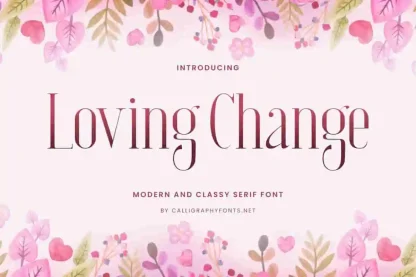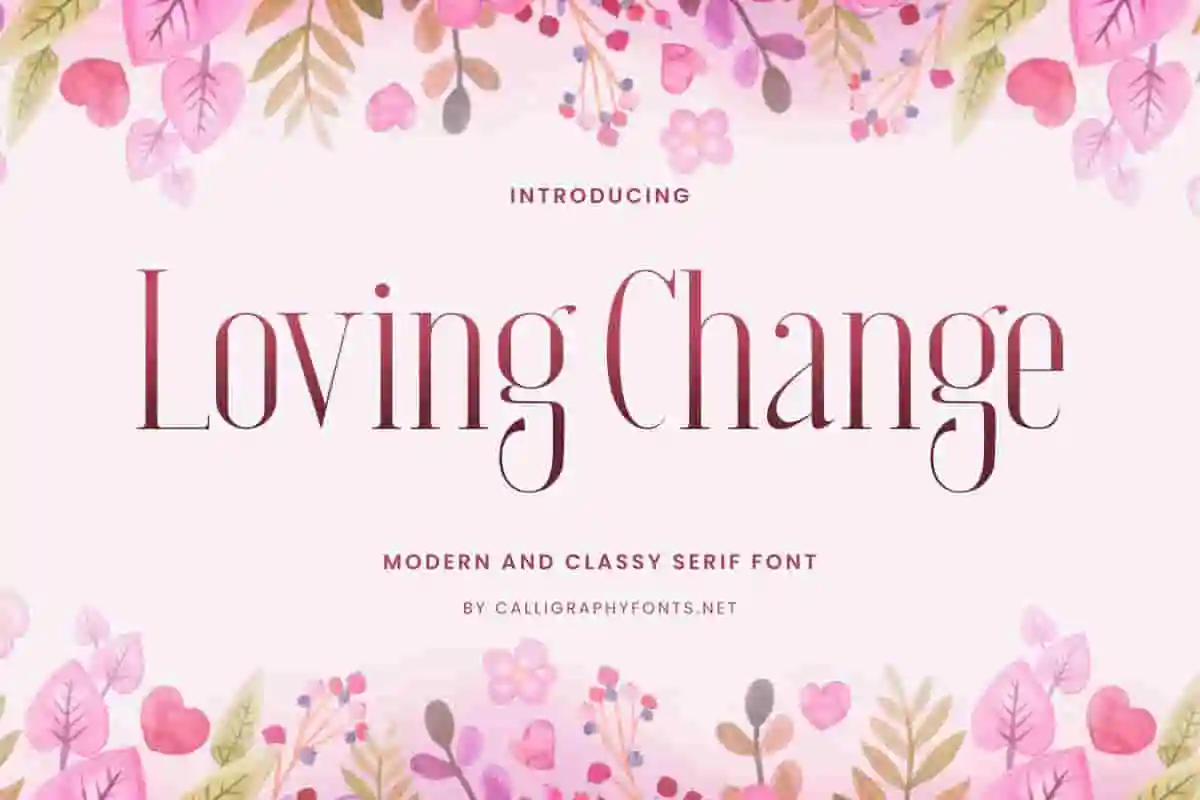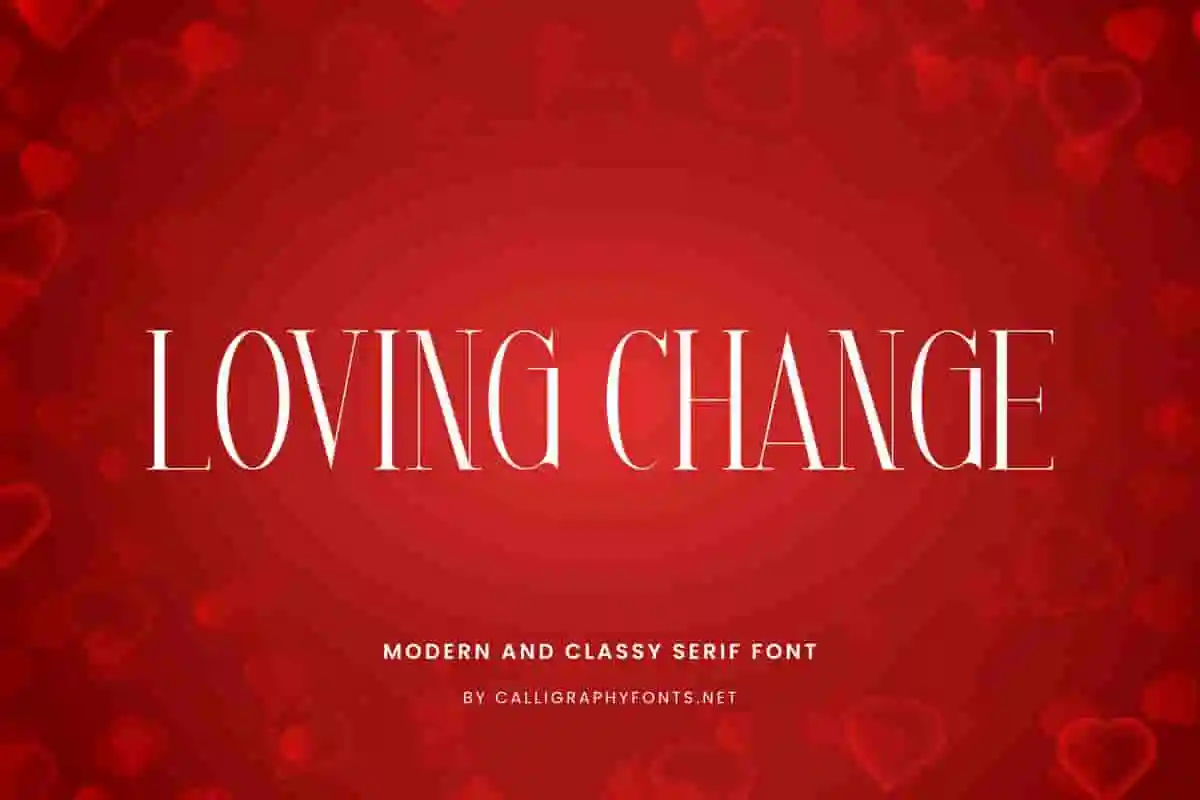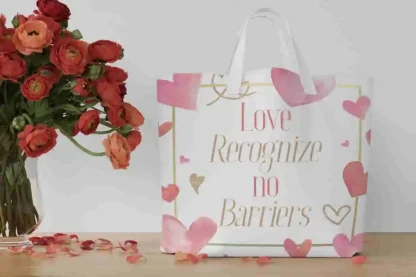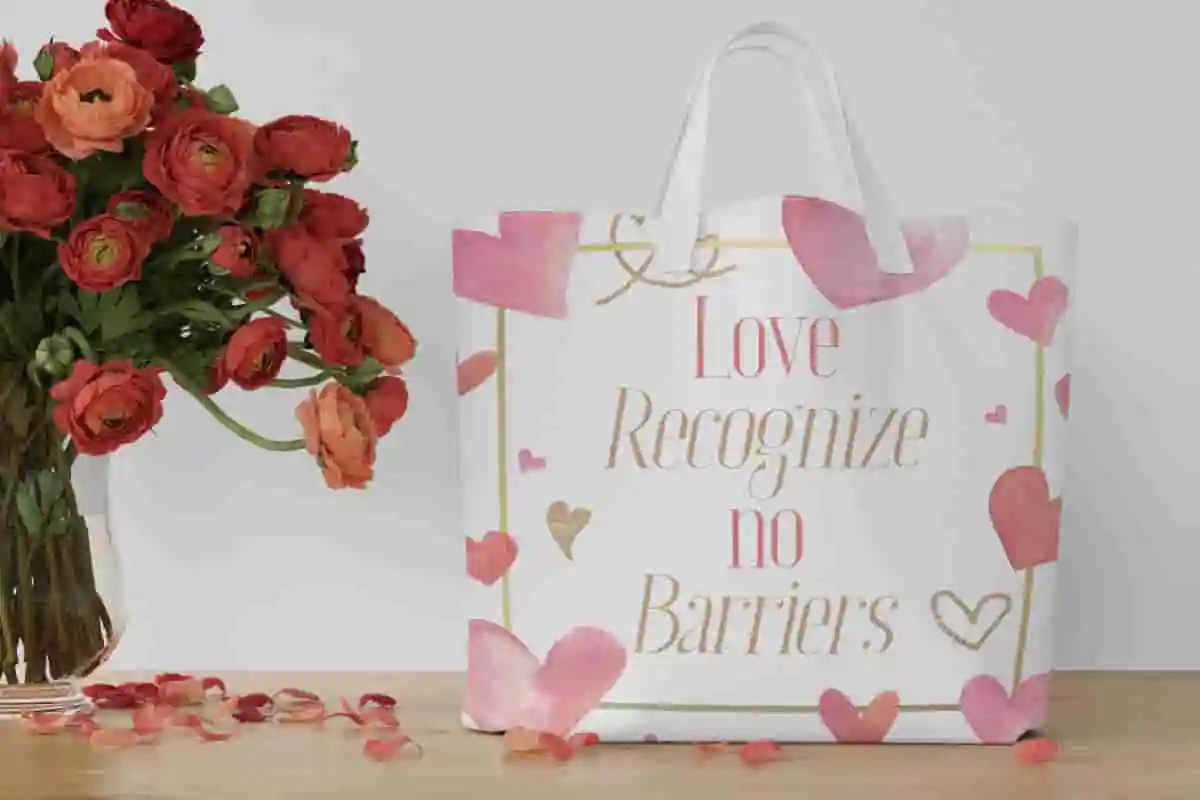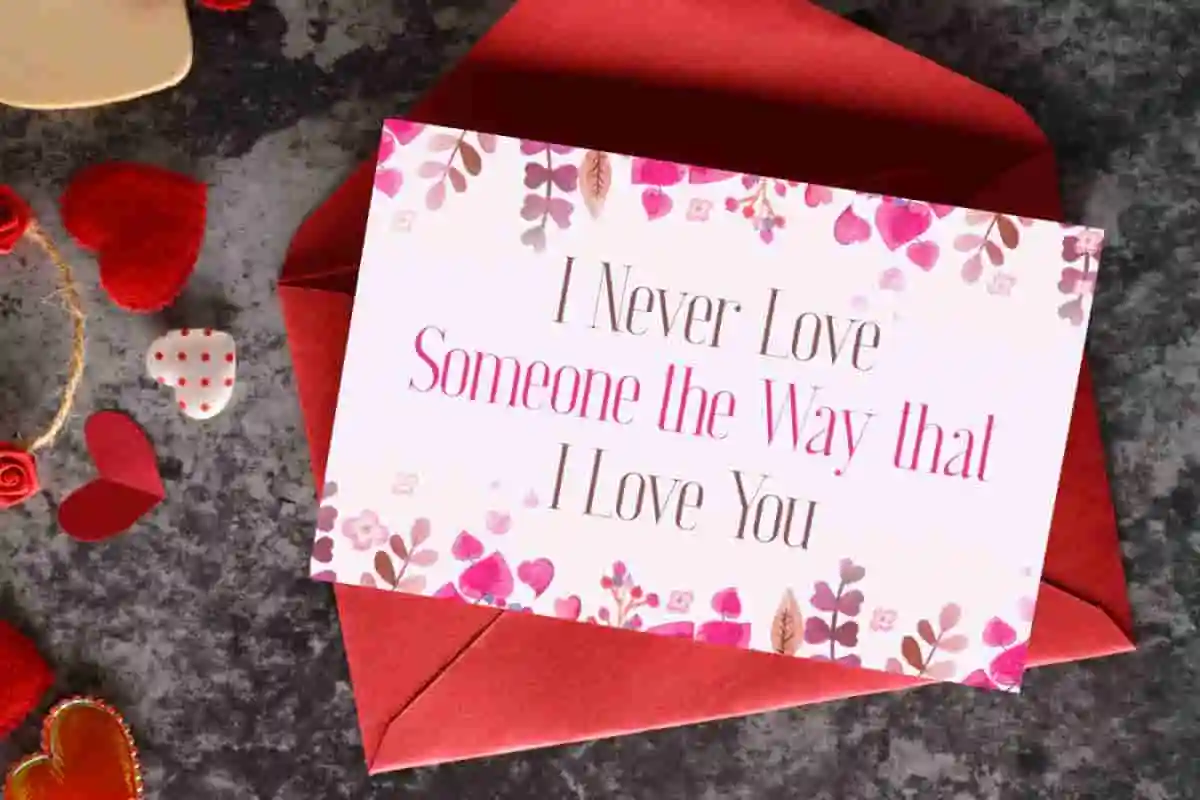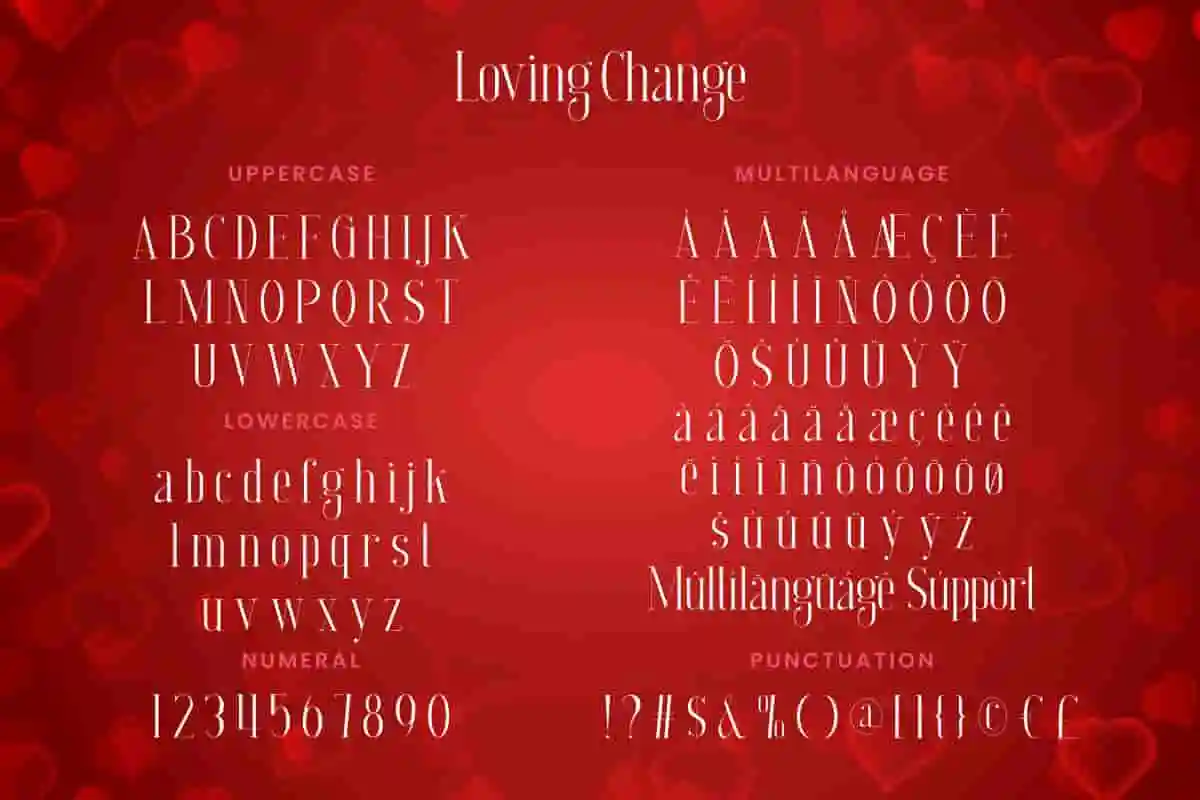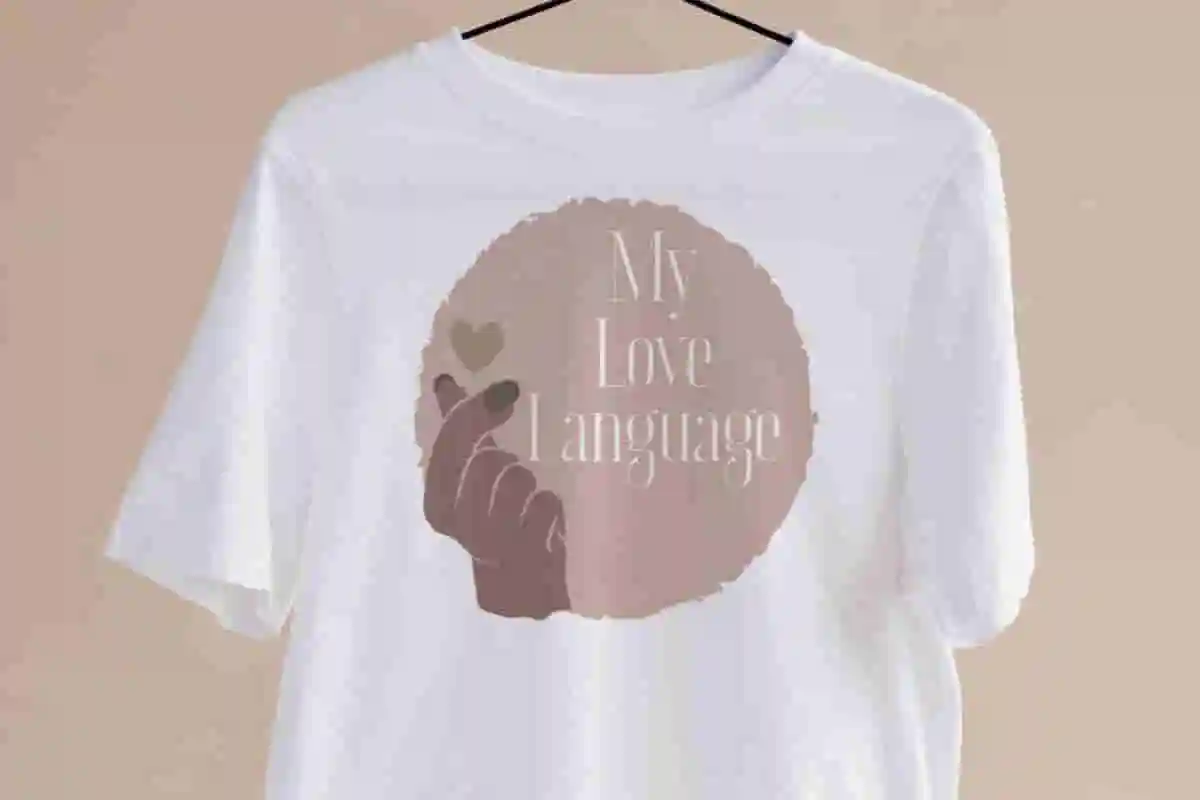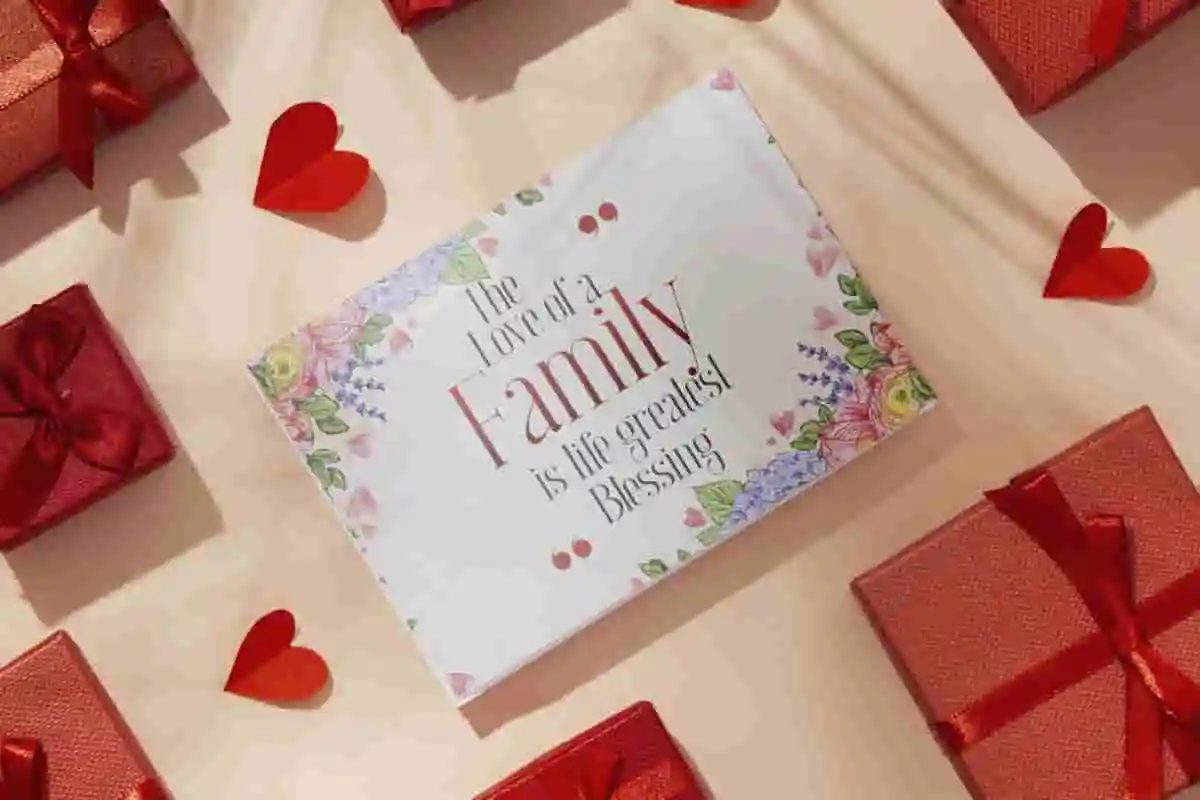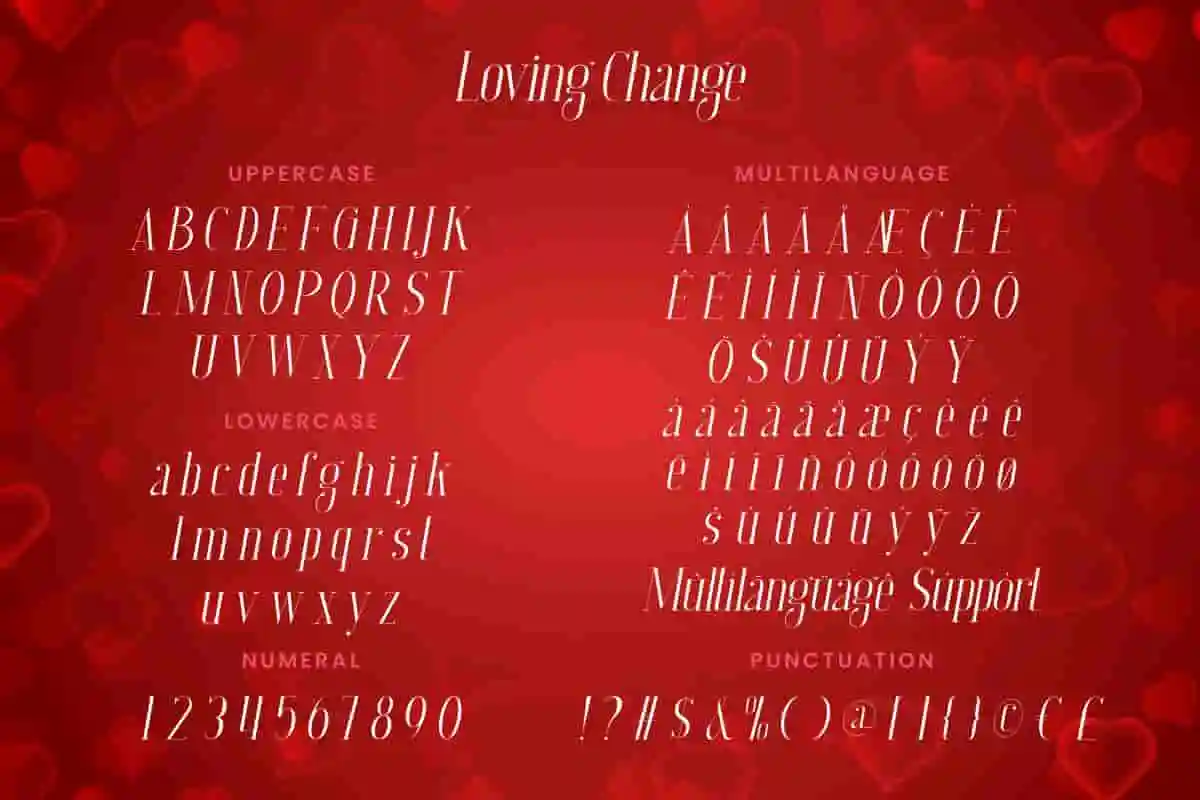
Loving Change Font
Loving Change Font is a classy look of serif font from CalligraphyFonts. It is sure to be perfect for cosmetic, fashion brand, florist, label, quote, real estate, restaurant, writer, and anything that requires an elegant modern look.
Loving Change Font is a modern serif font with classy look, created by CalligraphyFonts. This font is suitable for any creative project such as : banner, brand logo, design packaging, greeting card, heading, labels, poster, quotes, stationery, t-shirt, tote bag design, and more.
Loving Change Font consists of two styles, namely : Regular and Italic which is suitable for any industry, such as cosmetic, clothing, event planner, fashion brand, furniture, florist, hotel, homeware, movie, publishing, restaurant, salon, spa, and anything that needs an eye catching serif look.
Loving Change Font comes with a full set of Uppercase and Lowercase Basic Characters, Numerals, Punctuation, Symbol, and also support multi language. Ready to use both on Windows machine or Mac with simple installations. It’s tested to work well in the Adobe Apps (Illustrator, Adobe InDesign, Adobe Photoshop) CorelDraw, and others. PUA Encode Characters means you can access all the glyphs and other characters easily (open with Character Map on Windows and Font book on MAC).